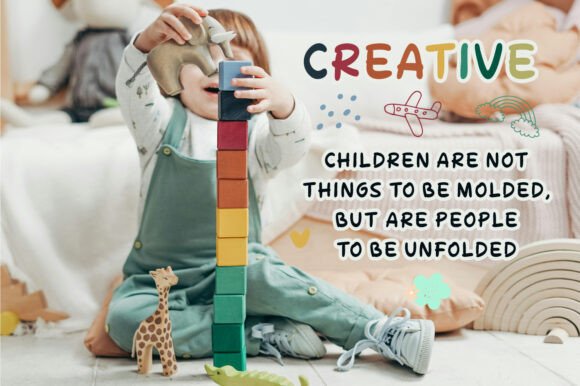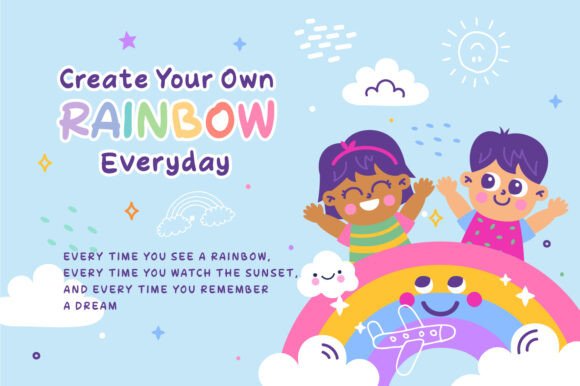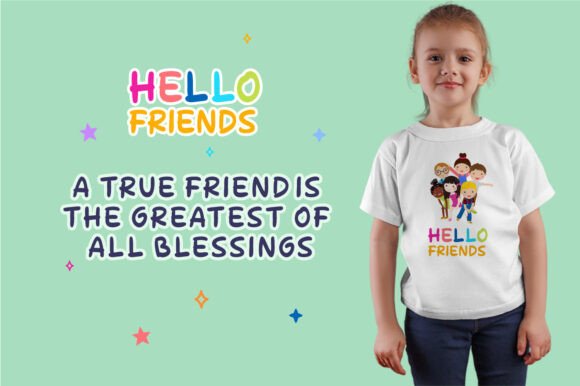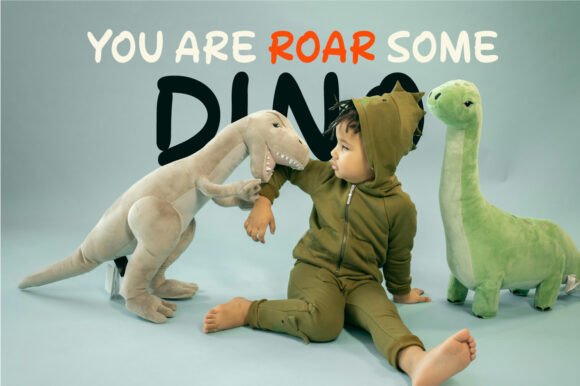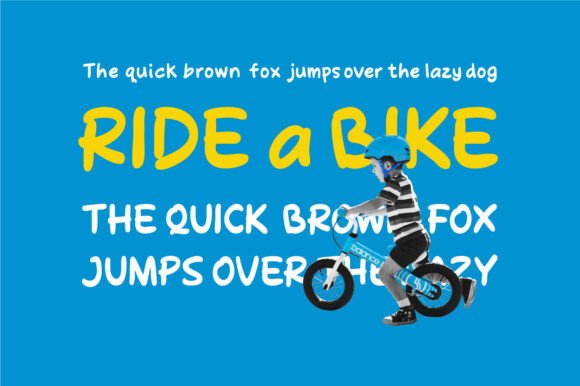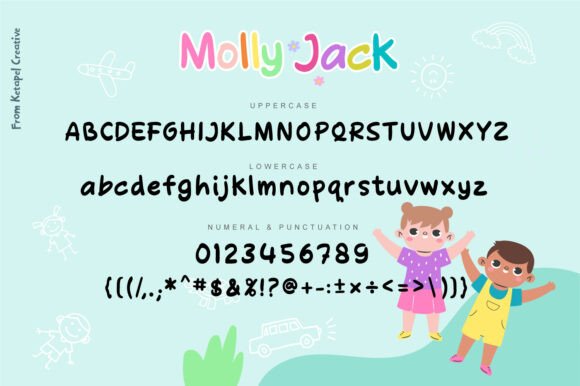
Introduction to Molly Jack Font
Molly Jack is an awesome, playful, and unique comic font with lots of personality.
Fall in love with its playful look & feel .
Key Features of Molly Jack Font
Why Choose Molly Jack Font?
Molly Jack Font offers exceptional quality and versatility, making it a valuable addition to your design toolkit. Whether you’re creating for personal projects or commercial use, Molly Jack Font delivers professional results.